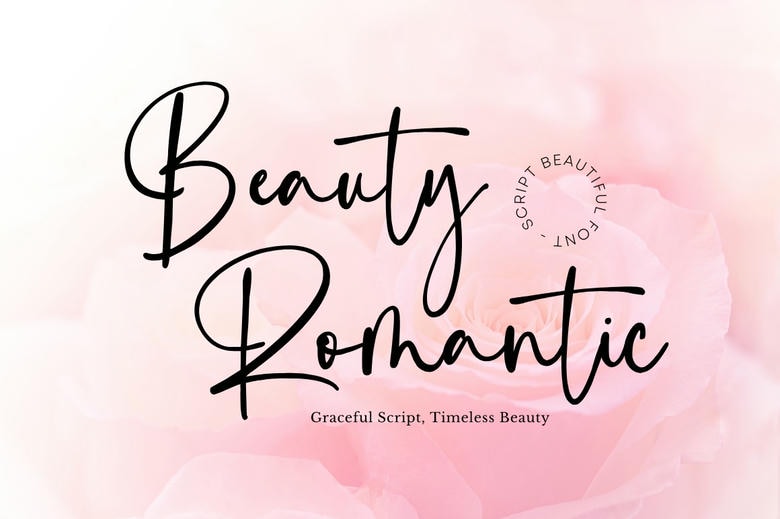
Beauty Romantic Font
Beauty Romantic is a script font that embodies the meaning of romance with its natural and graceful strokes. Inspired by the beauty of nature, this font evokes a sense of organic beauty that makes one feel love and tenderness.
Ideal in projects that strive to include romance and affection like wedding invitations, love letters, or romantic quotes, Beauty Romantic enhances a certain degree of elegance and sincerity to your design, and thus making your display of love completely heart gluing and captivating.
Beauty Romantic Handwritten Script Font